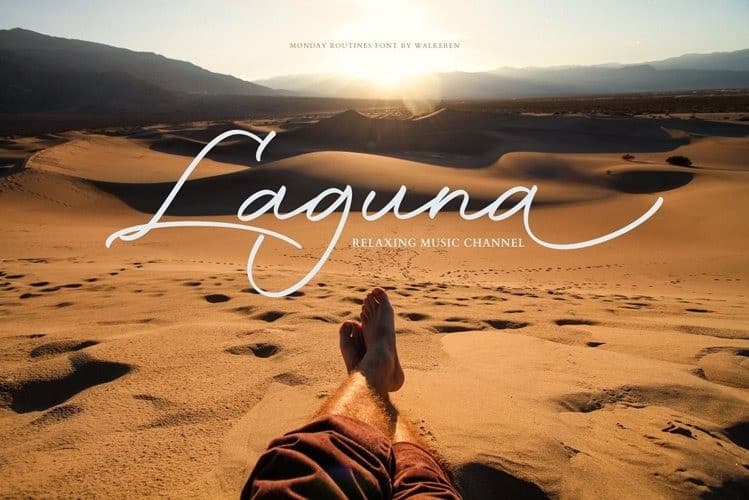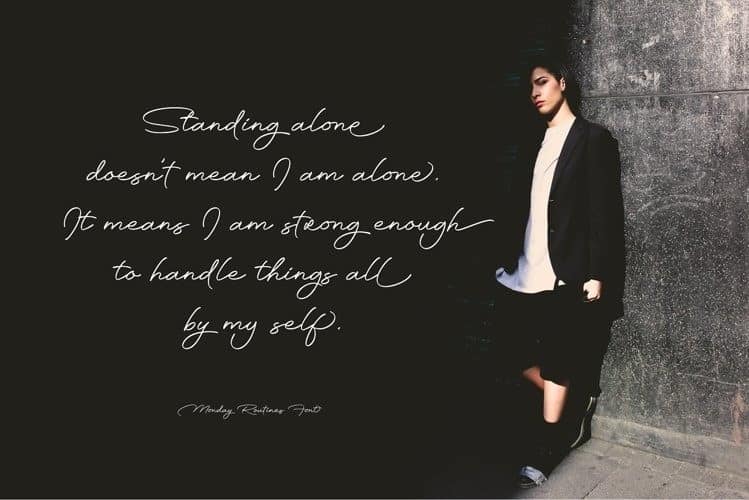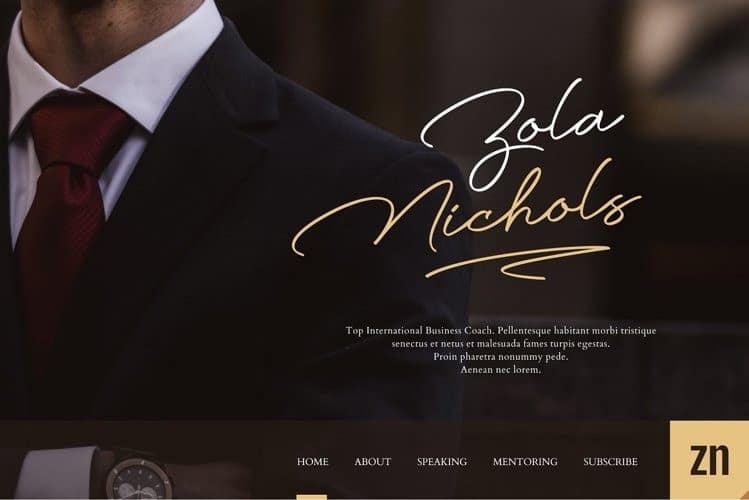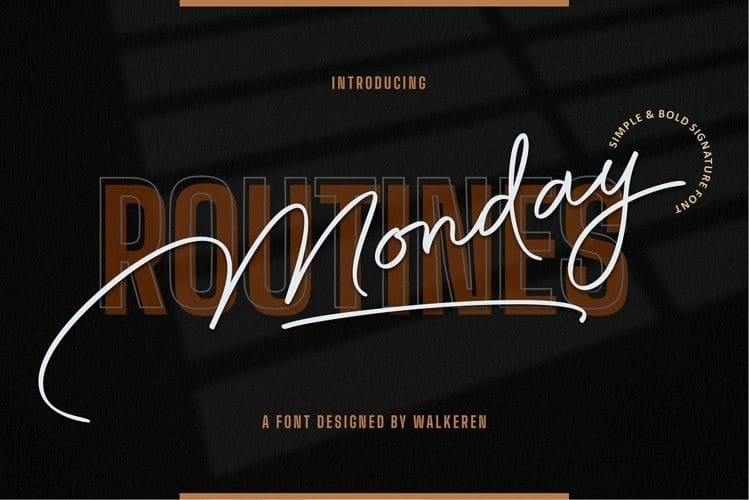
Monday Routines Handwritten Font
Monday Routines Handwritten Font with a handmade Signature style, decorative characters and a dancing baseline! Made from font designer named Walkeren. This font comes to complement your warm spirit to start all your fun activities. This typeface is a simple and bold signature font style designed with decisive and strong lines, provides an authoritative impression.
You can use Monday Routines Handwritten Font for any purposes such as branding, signatures, product packaging, titles of books or novels, or just on social media posts.